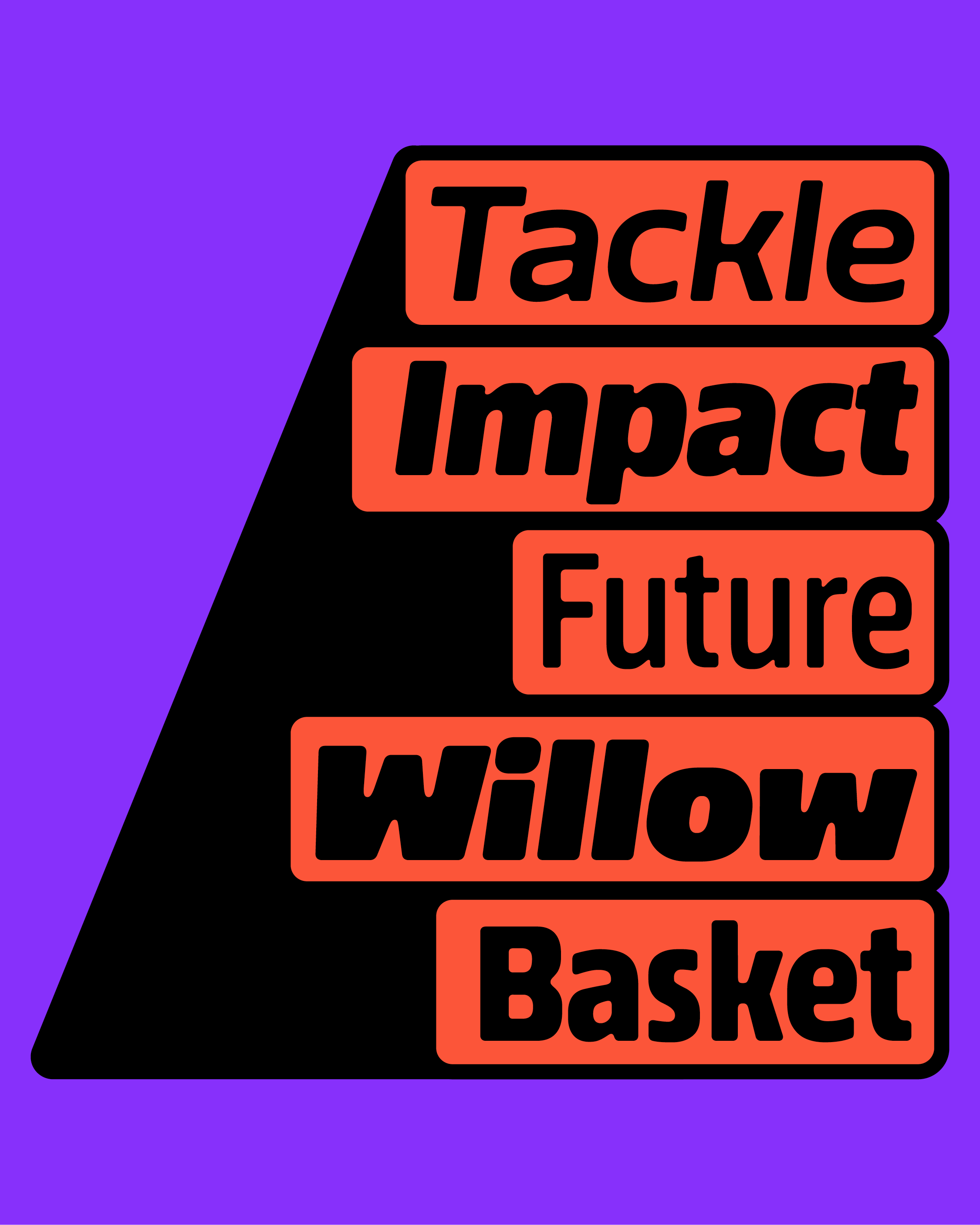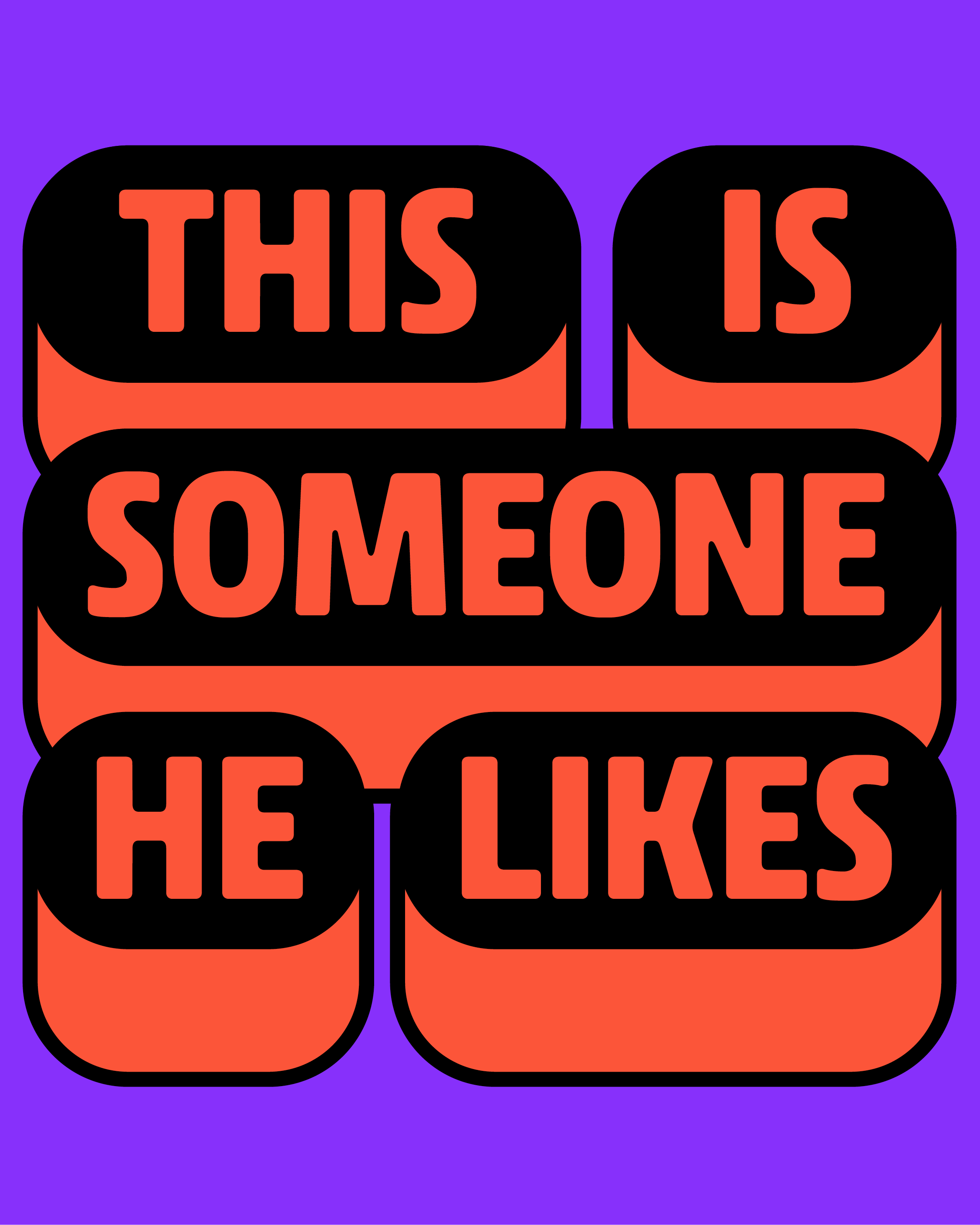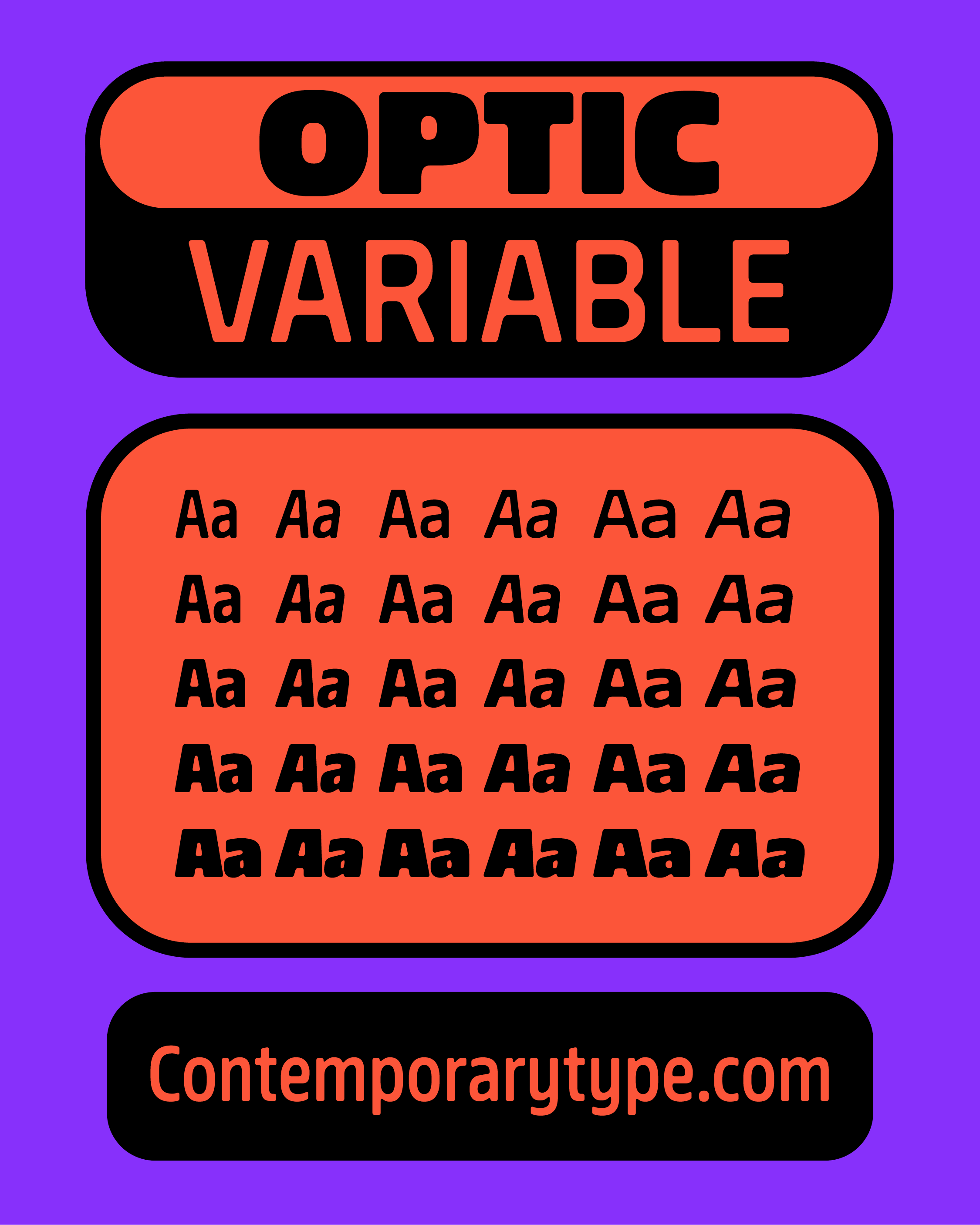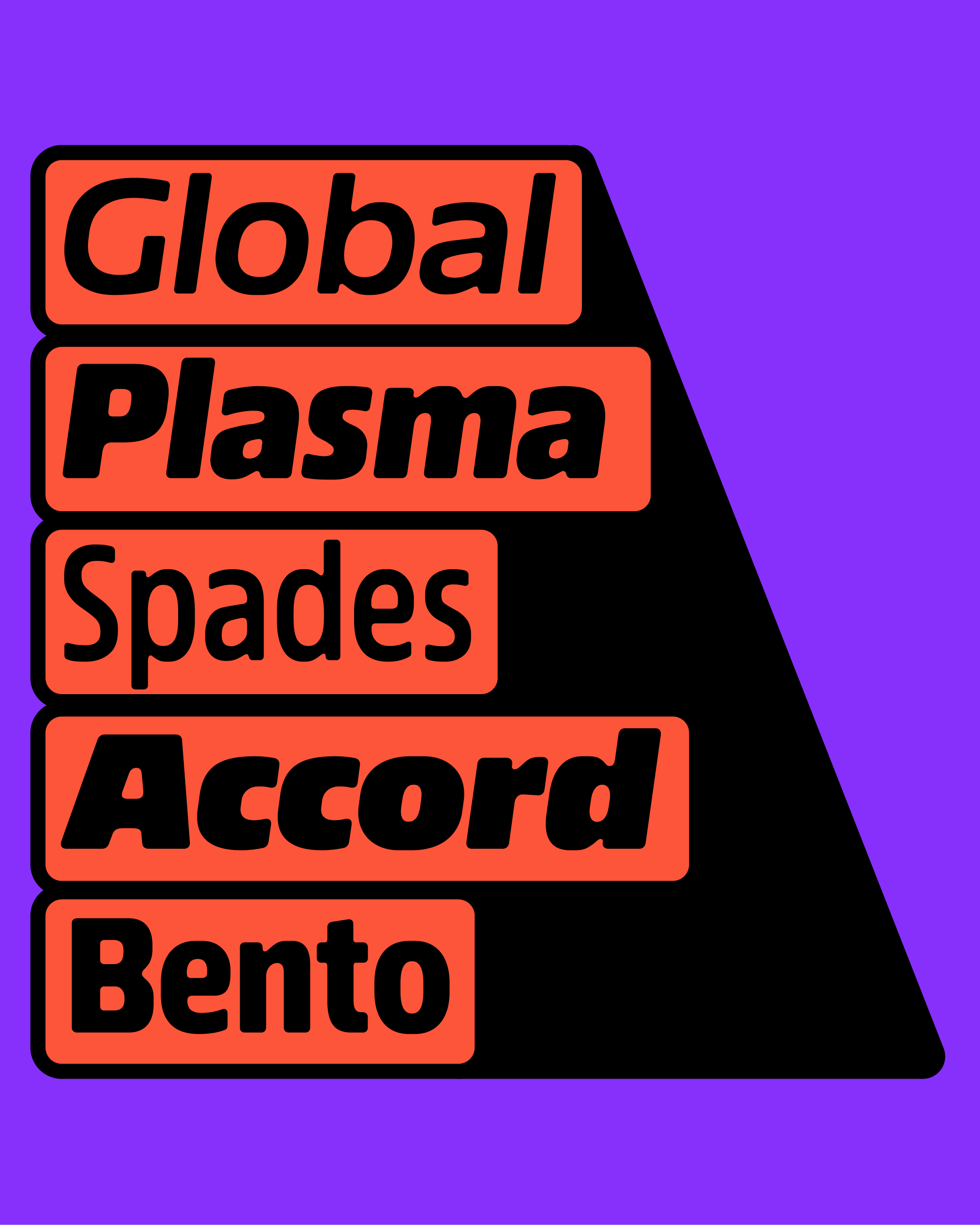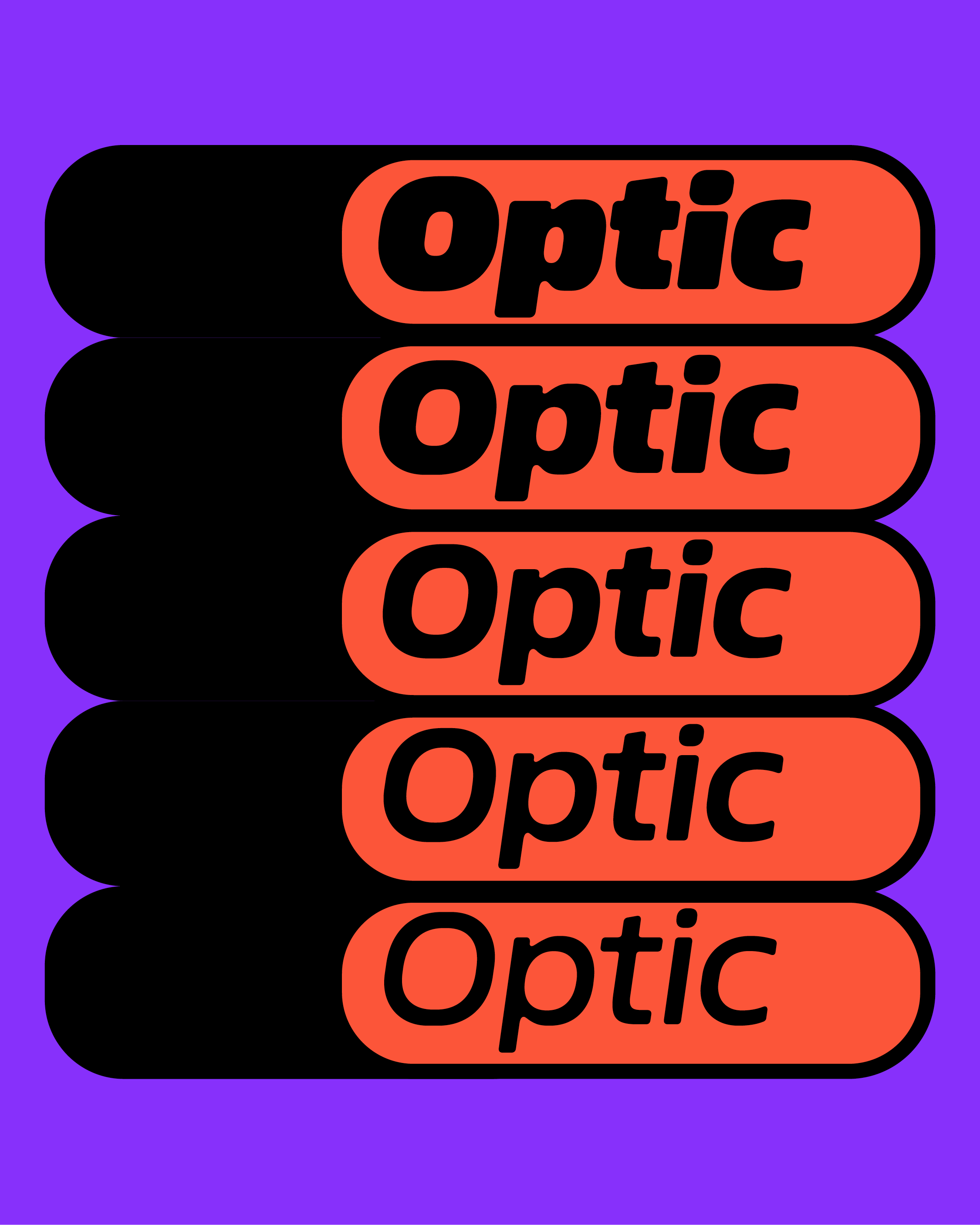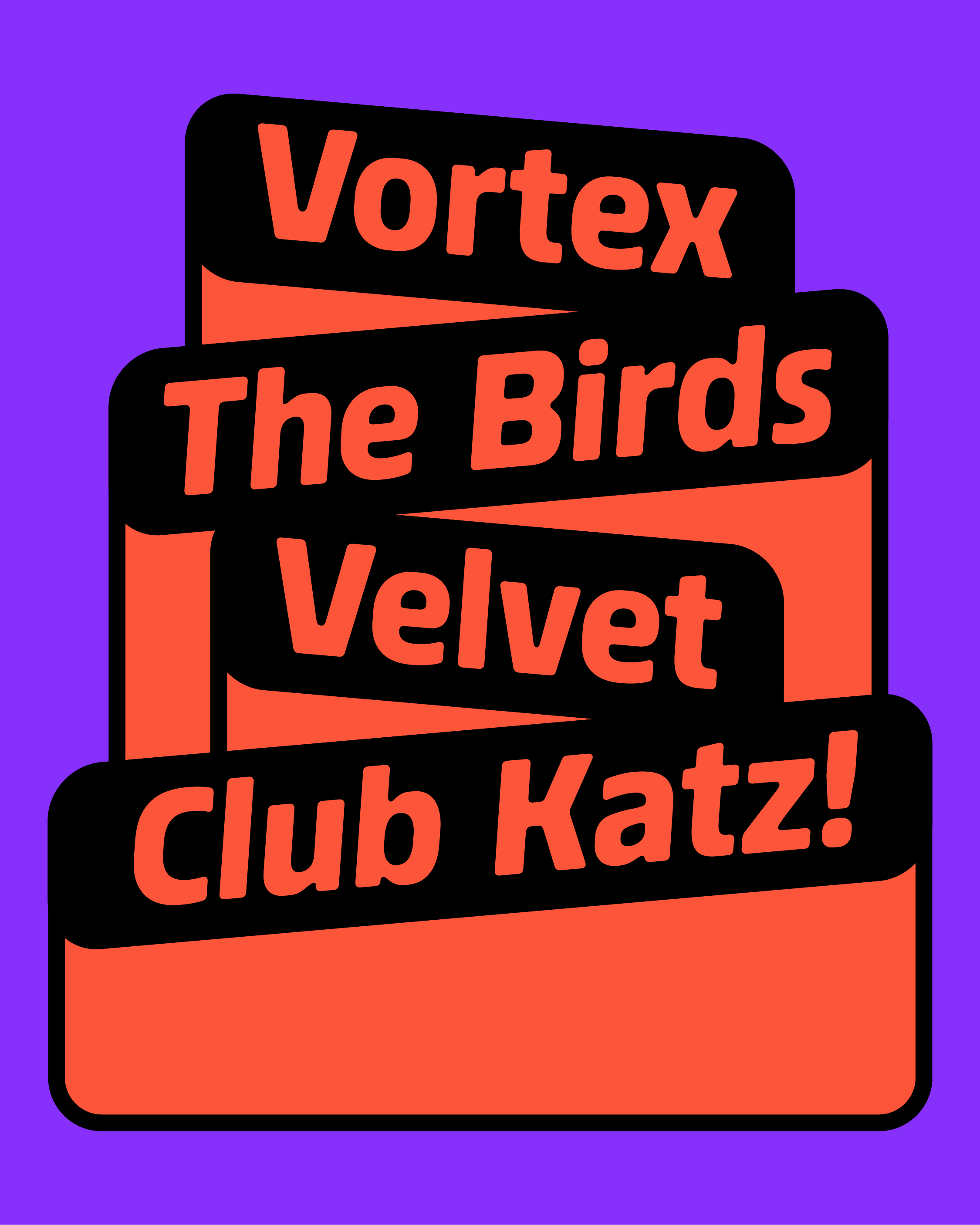
Category:
sans-serif
Tone:
casual, weird
Use size:
large, medium, small
Width:
narrow, normal, wide
Weight:
light, regular, medium, bold
Contrast:
low
Other:
variable, rounded
About the typeface
Tough on the inside and soft on the outside, Optic is a bold but light-hearted design. The letters look as if they were carved in blocks of rock, giving them a natural and raw aesthetic. The strokes of the letters are slightly uneven, which adds to the charm of the design. Optic would work well for a variety of projects, including advertising, packaging, and branding. Its playful yet sturdy design would also make it a great choice for children's books or educational materials. Overall, Optic is a versatile and eye-catching typeface that adds personality to any project.